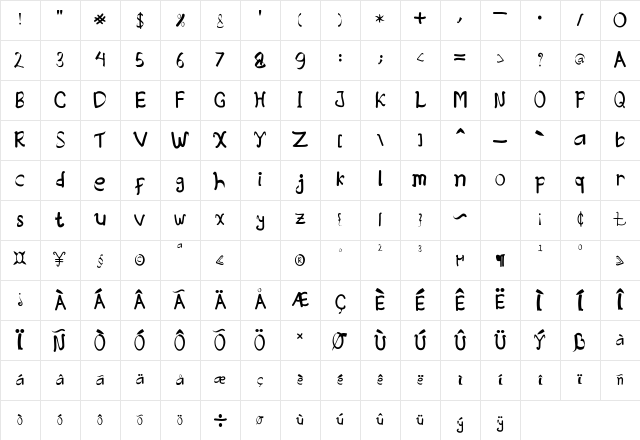
Creative Designer Regular Free Font
Creative Designer Regular
Foundry: Jetsmax Studio
Designer: Khairil Anwar
Design Context for Creative Designer
Creative Designer is a composed and adaptable typeface that performs quietly and consistently across a wide range of design contexts.